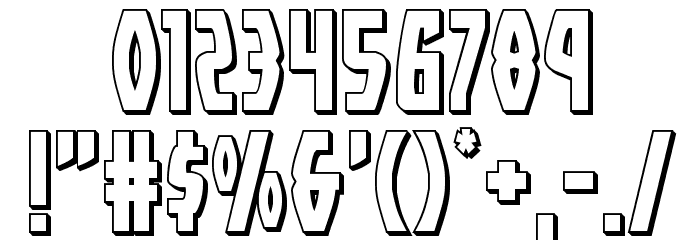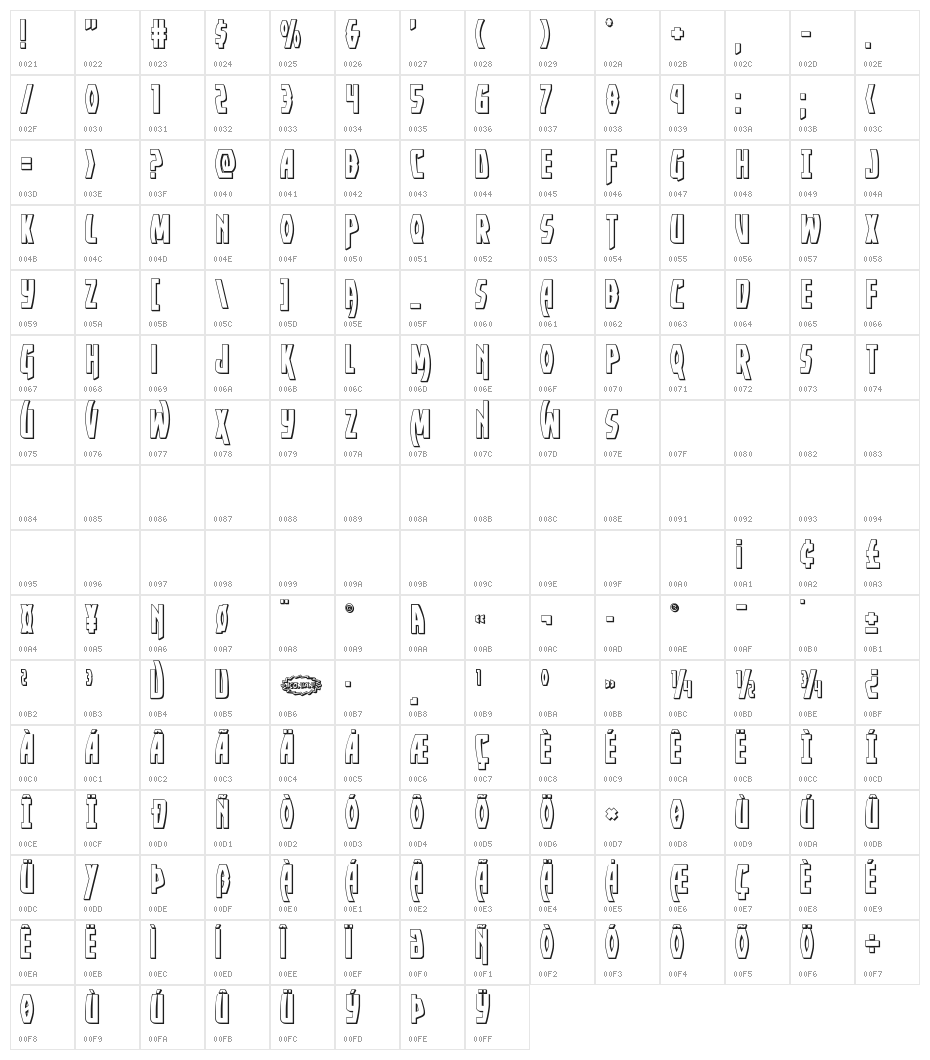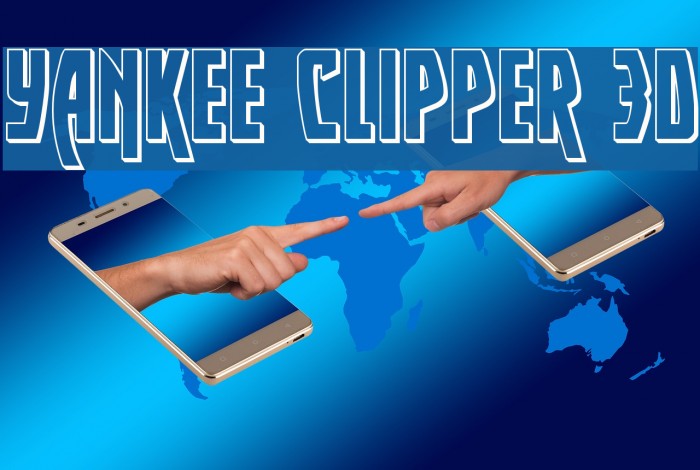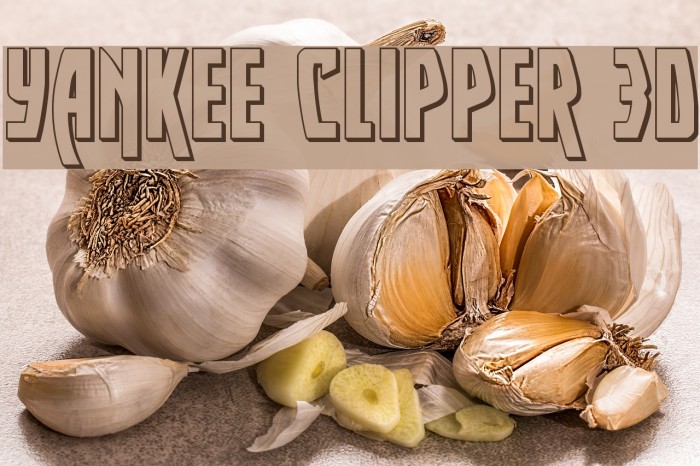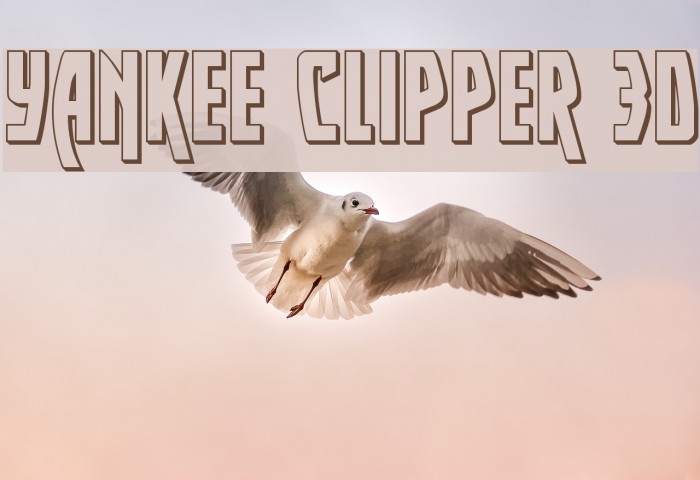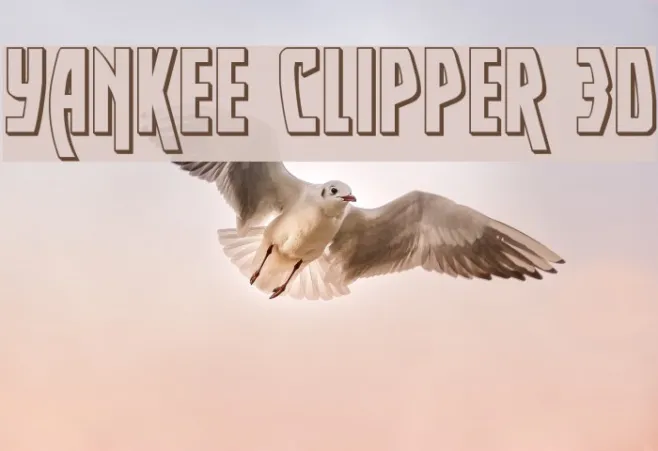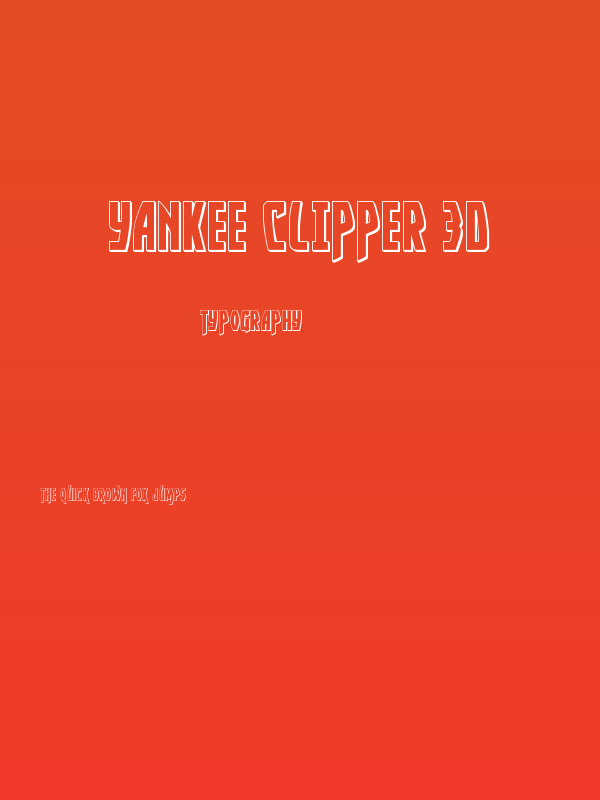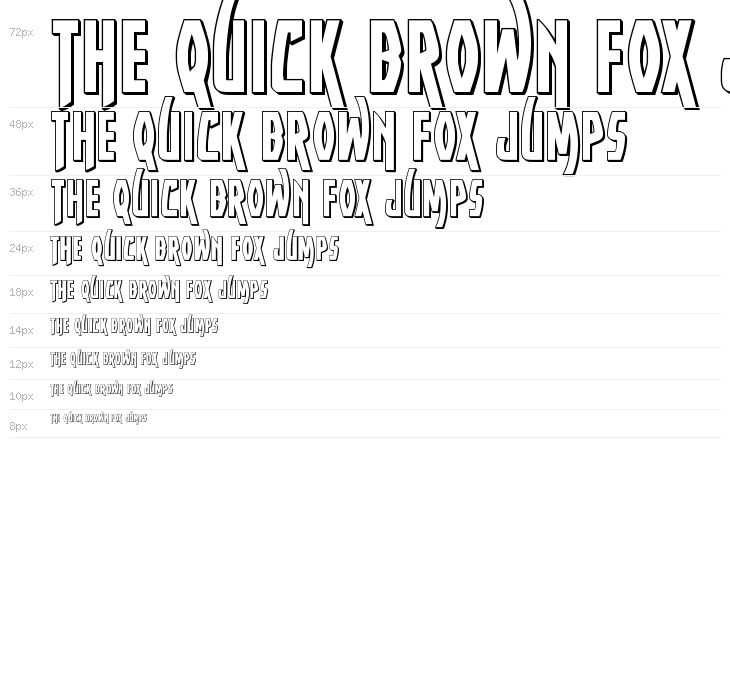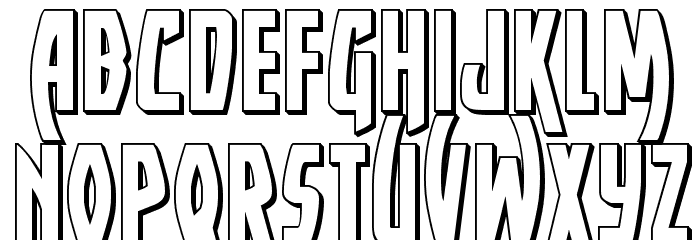
Yankee Clipper 3D Font
Yankee Clipper 3D Description
This font features a bold, three-dimensional style with a strong, impactful presence. The characters are outlined with a thick border, creating a shadow effect that gives depth and dimension. The uppercase letters are angular and geometric, with sharp edges and a slightly condensed form. The numbers and special characters follow the same design principles, maintaining consistency across the set. This font is designed to stand out and grab attention, making it ideal for projects that require a bold statement.
| Proposed Projects | Ideal for posters, headlines, logos, and any design needing a bold, eye-catching typeface. |